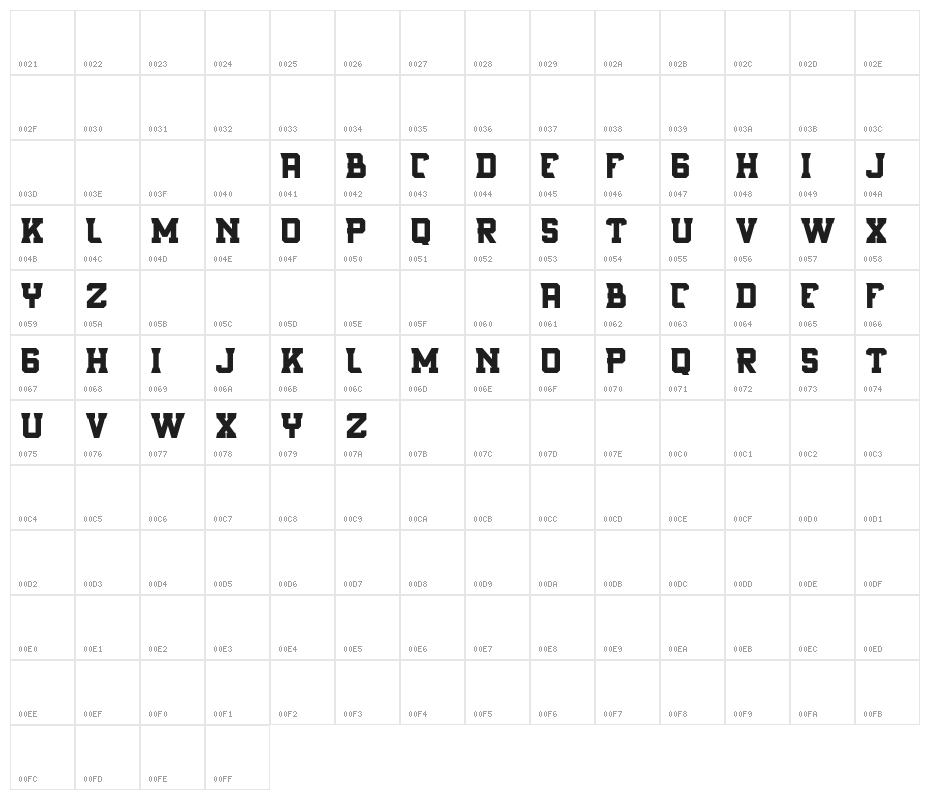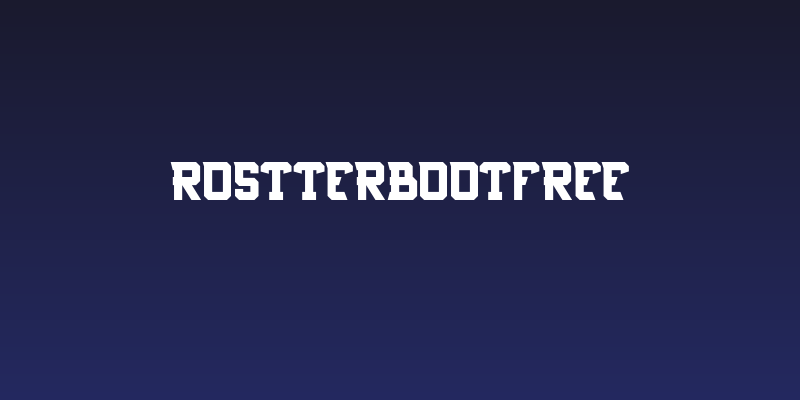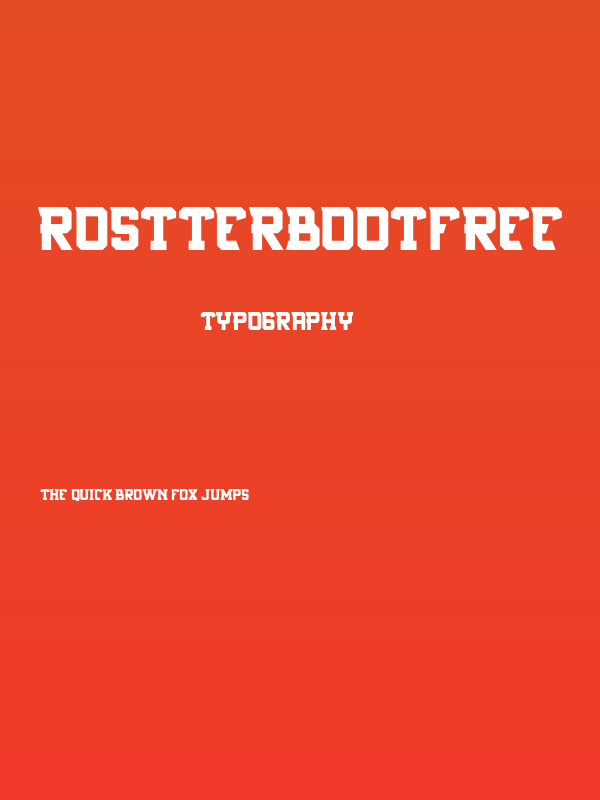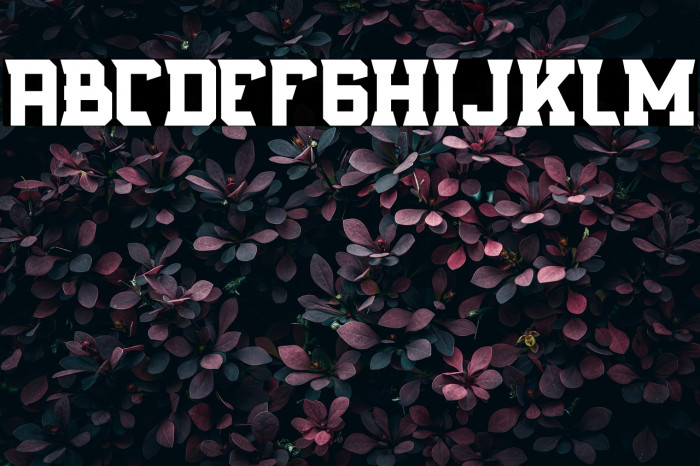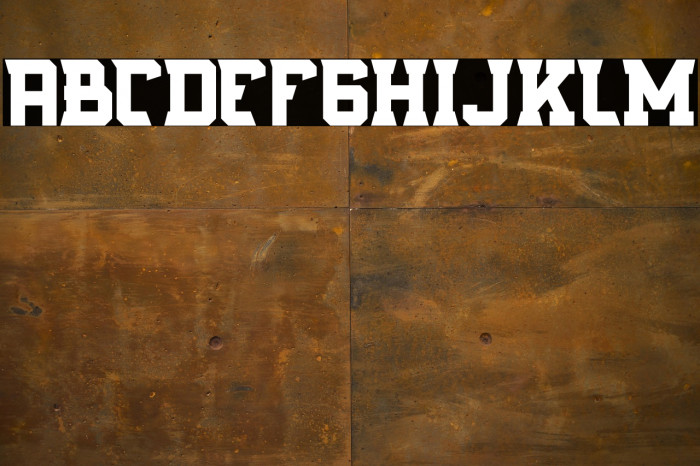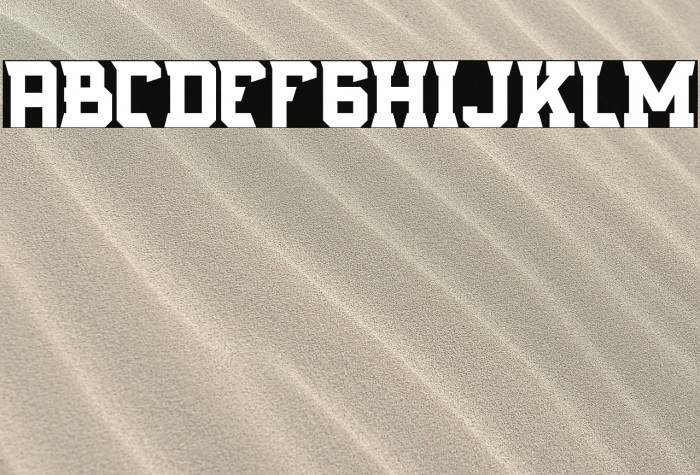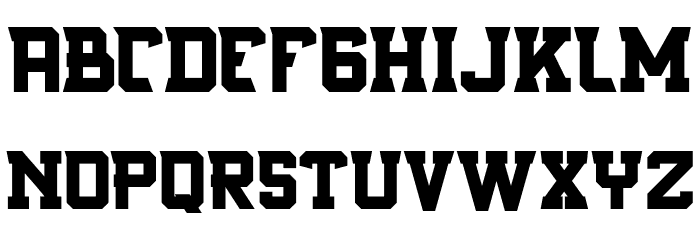
RostterbootFREE Font
RostterbootFREE Description
This font features a bold and striking design with a strong geometric structure. The characters are crafted with sharp angles and a blocky appearance, giving it a robust and commanding presence. The uppercase letters are uniform in height, while the overall style maintains a consistent weight throughout. The font's design is reminiscent of industrial or military aesthetics, making it ideal for projects that require a bold and assertive typeface. Its unique character shapes and solid form make it stand out, ensuring that any text set in this font will capture attention.
| Proposed Projects | Ideal for posters, logos, branding, and headlines that need a bold, impactful presence. |